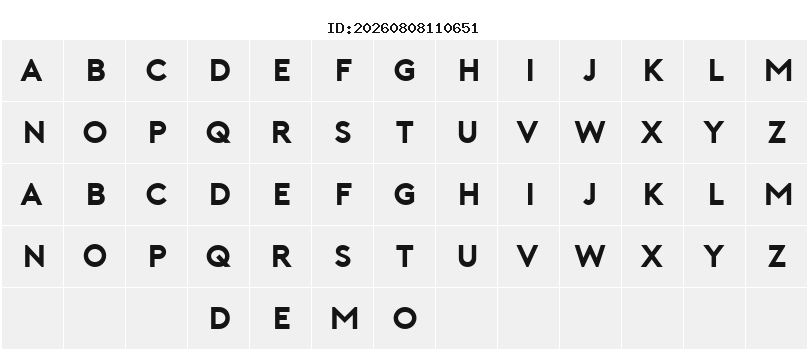
• Font Name: Porter
• Font Style: Bold DEMO
• Full Font Name: Porter Bold DEMO
• Designer: Frank Hemmekam
About Porter.ttf
Porter.ttf is a modern, elegant sans-serif font designed for ultimate readability and visual harmony. Perfect for branding, headlines, web design, and print materials.